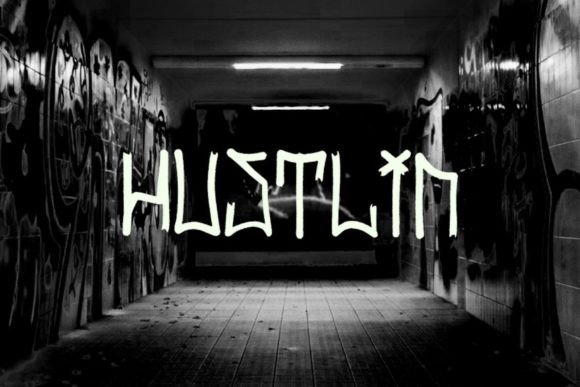
Hustlin Font
In the realm of street-inspired typography, Hustlin Font, the brainchild of Alien Shop, reigns supreme. This captivating script font, with its gritty urban flair, is the embodiment of raw energy and authenticity. Embark on a visual journey where your designs pulsate with the rhythm of the city streets. Hustlin Font possesses an innate ability to transform even the most mundane text into an artistic masterpiece. Unleash the power of self-expression as you watch words morph into urban art, echoing the vibrant pulse of the city's heart.
Step into the world of Hustlin Font, where creativity takes center stage. With its meticulously crafted glyphs, this font emanates the essence of urban culture, capturing the raw energy and spirit of street art. Its bold strokes command attention, while its playful curves add a touch of whimsy. Whether you're designing posters, flyers, logos, or social media graphics, Hustlin Font seamlessly blends edginess with sophistication, making your designs stand out from the crowd.
Embrace the urban spirit, let your imagination run wild, and create captivating visuals that speak to the soul. Engage your audience with designs that resonate with raw emotions, reflecting the vibrant energy of street culture. Hustlin Font is more than just a font; it's a gateway to a world of visual storytelling. Unleash your creativity and paint the town with your designs, leaving an indelible mark on the digital landscape.